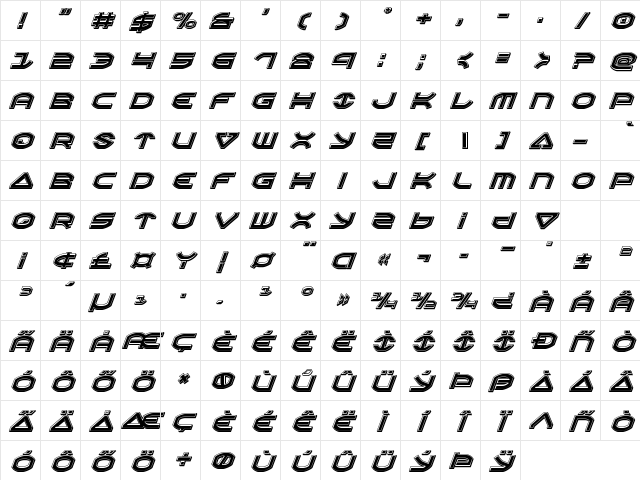
Oberon Bevel Italic Italic Free Font
Oberon Bevel Italic Italic
Design Context for Oberon Bevel Italic
Oberon Bevel Italic is a composed and adaptable typeface that performs quietly and consistently across a wide range of design contexts. The slanted form adds forward momentum and visual energy.
Pro Tip: Use Oberon Bevel Italic for emphasis, pull quotes, and subheadings where its slanted energy can add rhythm to the layout.